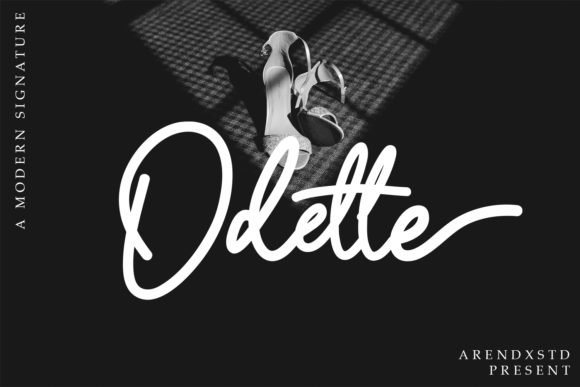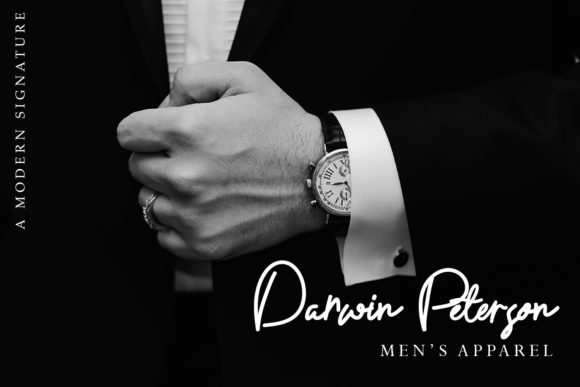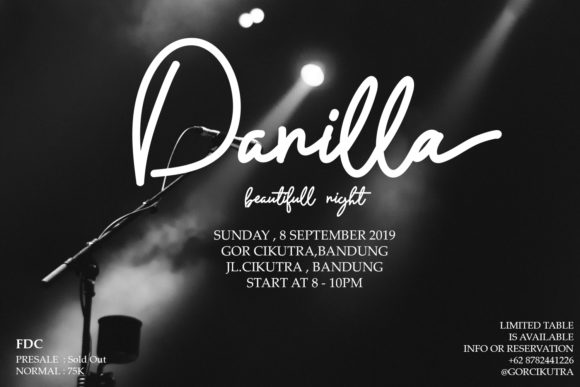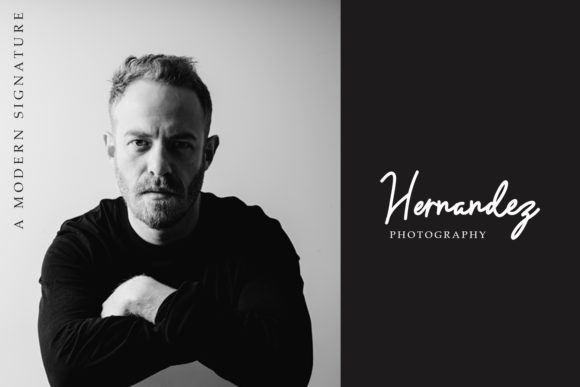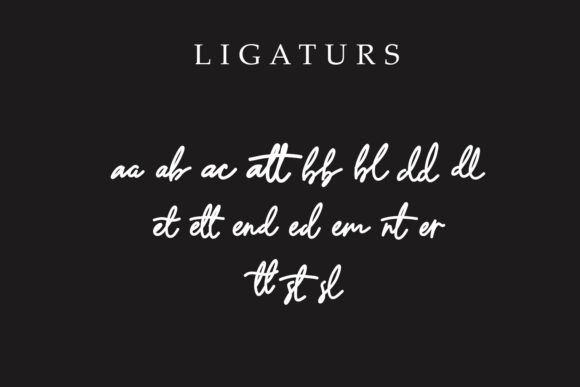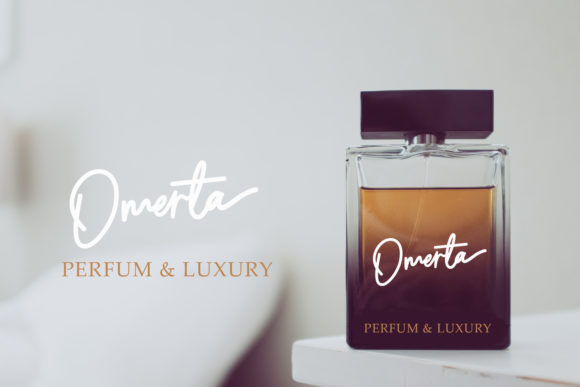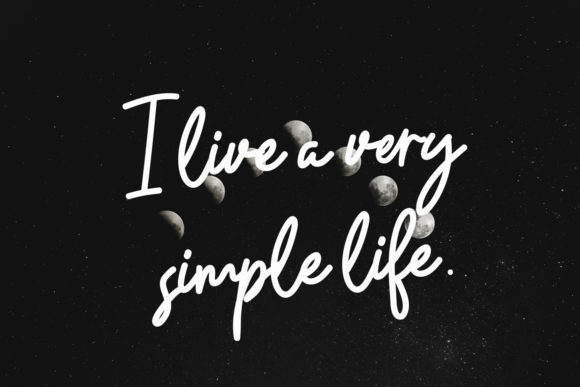
HomeScript FontsOdette Font Script Fonts Odette Font FacebookXPinterestWhatsApp Odette Font Poster 2 Odette Font Poster 3 Odette Font Poster 4 Odette Font Poster 5 Odette Font Poster 6 Odette Font Poster 7 Odette Font Poster 8 About Odette Font Odette combined modern sensibility with a sophisticated feel, making it a timeless classic! DOWNLOAD ON CREATIVE FABRICAThis font is sold and delivered by Creative Fabrica. Font Canyon may earn a commission if you buy through this link. People also explored Venya Kasmirah Font Destination Font Heart Doodles Perfect Island Modern Handwritten Font Batta Quath Font Choerunnisa Font Romantic Valentines Font Butterfly Garden Font Groovy Flower Font 453 0 TagsOdette Font Previous articleAmbrossius Script FontNext articleAnatonym Font LEAVE A REPLY Cancel reply Comment: Please enter your comment! Name:* Please enter your name here Email:* You have entered an incorrect email address! Please enter your email address here Website: Save my name, email, and website in this browser for the next time I comment. Personal Use Free Old Linoleum Personal Use Free Read more about this font Bethania Personal Use Free Read more about this font Avagan Personal Use Free Read more about this font Rina Personal Use Free Read more about this font BLOG Transform Your Website: Elevate Your Typography with 7 Best Web Font Generators Are you ready to transform your website's typography from ordinary to extraordinary? Great! Today, we're diving into the world of web font generators, which... Top 10 Handwritten Fonts That Elevate Your Designs Exploring Font Trends Modern Sans-Serif Fonts That Brands Love in 2025